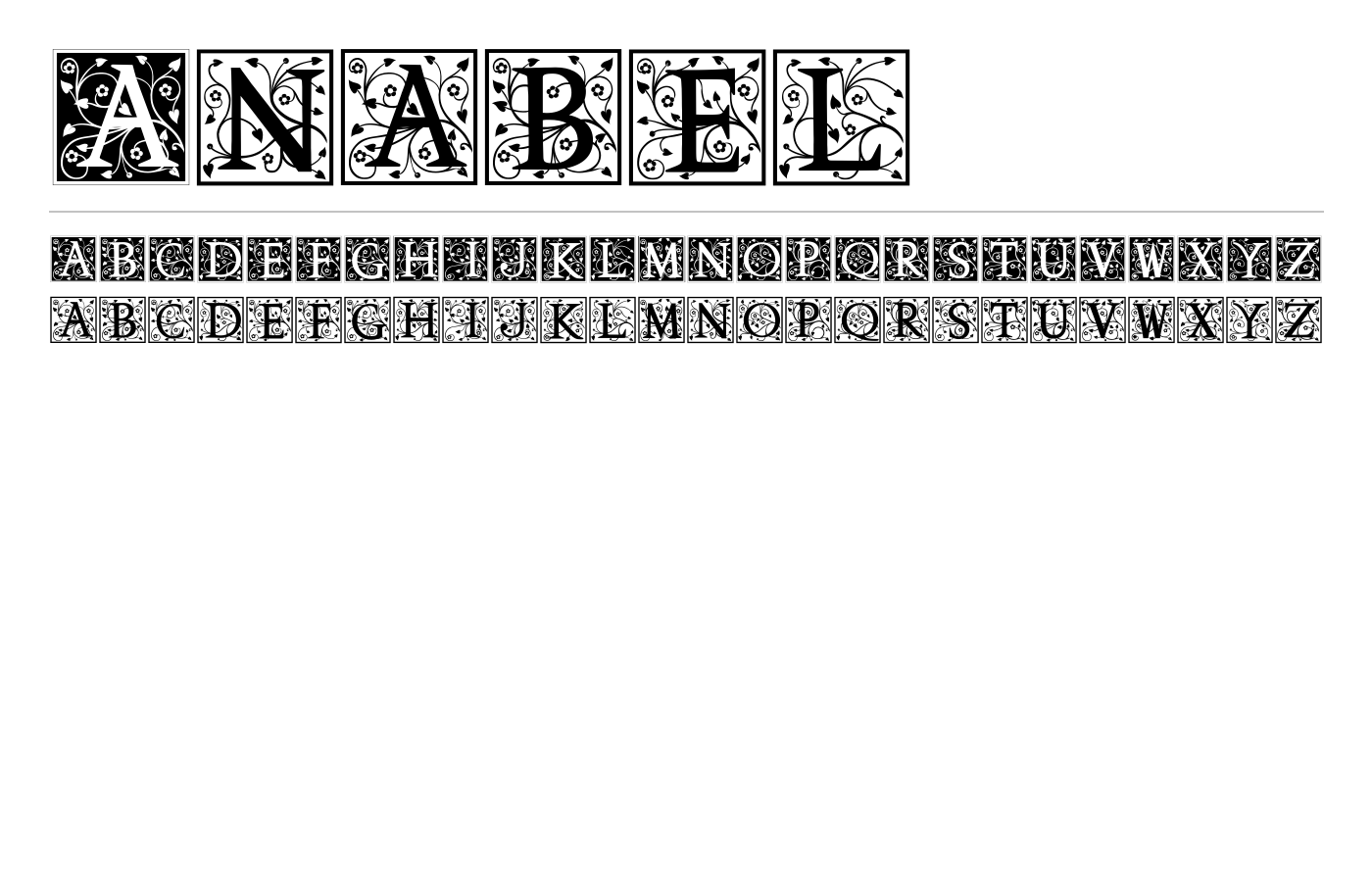
Anabel is a decorative serif display font characterized by intricate floral and vine embellishments within each letterform, framed in square blocks. It exudes a vintage and elegant personality, making it ideal for luxury branding, invitations, or editorial headlines where ornamental style is desired to create a striking visual impact. This font works best in large sizes to showcase its detailed artistry and sophisticated charm.
Anabel Font
About Anabel Font
| Font family | Anabel Font |
| Designer | Toto |